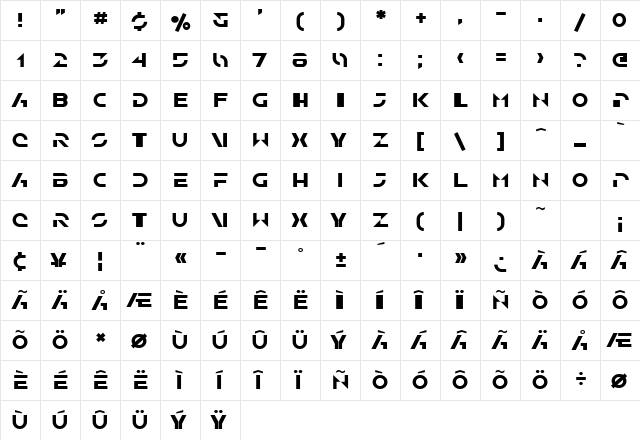
SF Solar Sailer Regular Font Preview
SF Solar Sailer Regular
SF Solar Sailer Regular Font Details
Design Context for SF Solar Sailer Typeface
SF Solar Sailer is a composed and adaptable typeface that performs quietly and consistently across a wide range of design contexts.